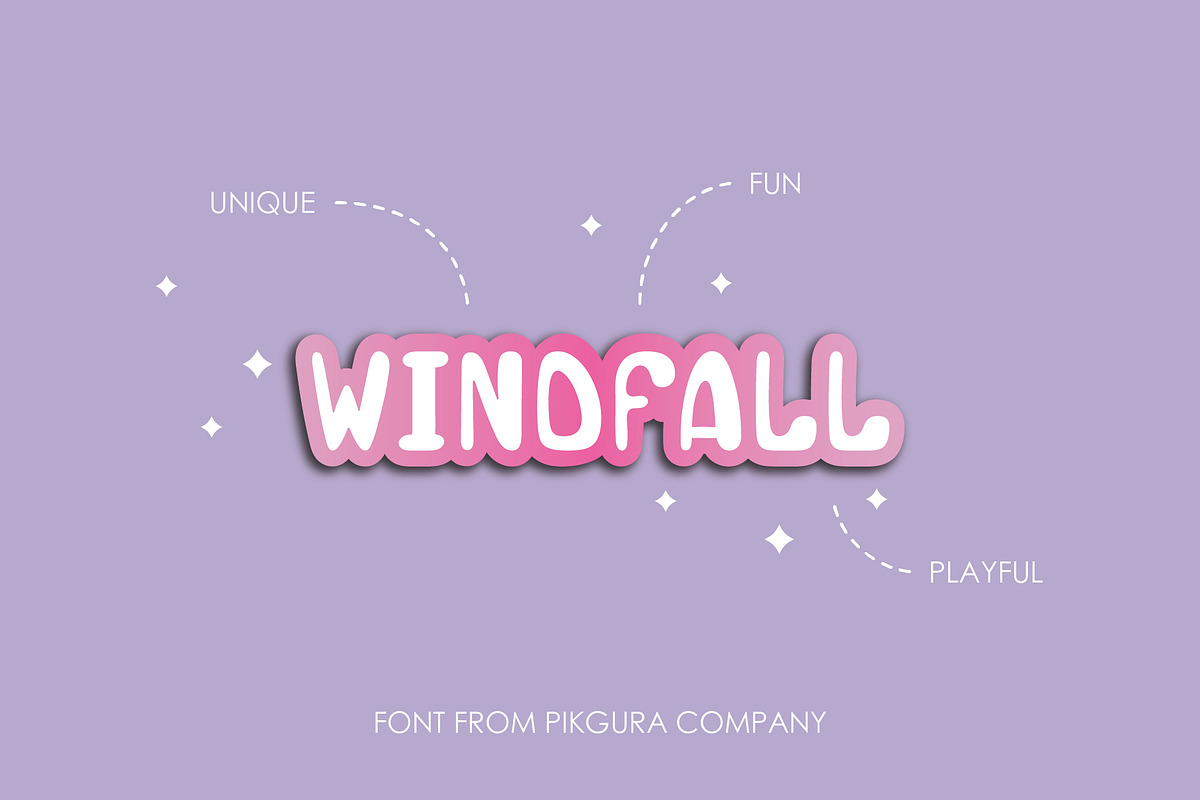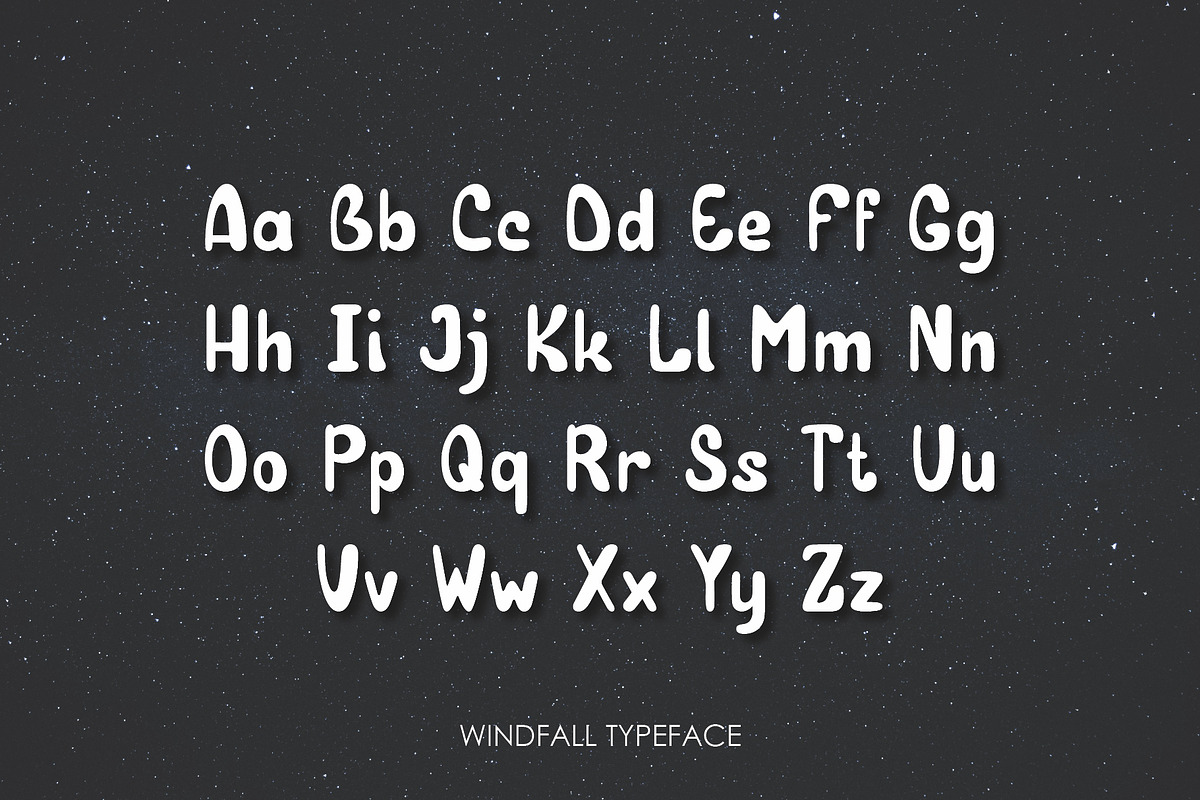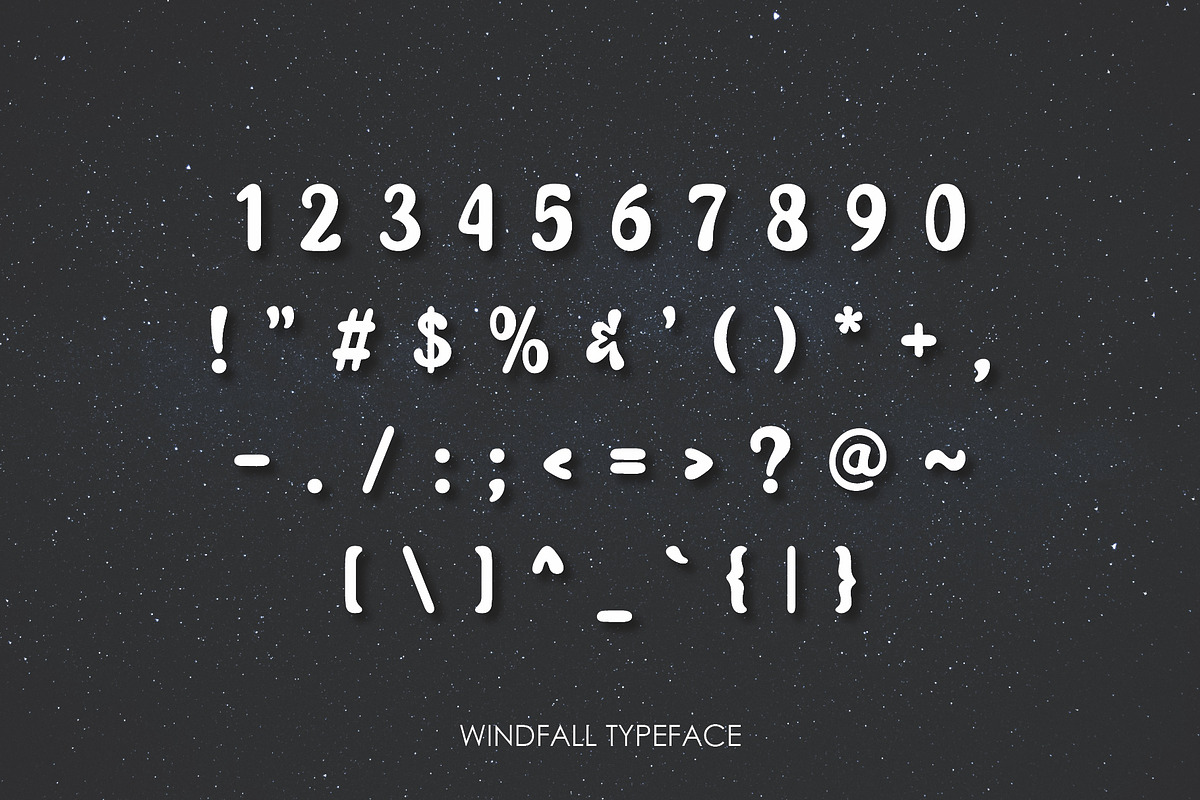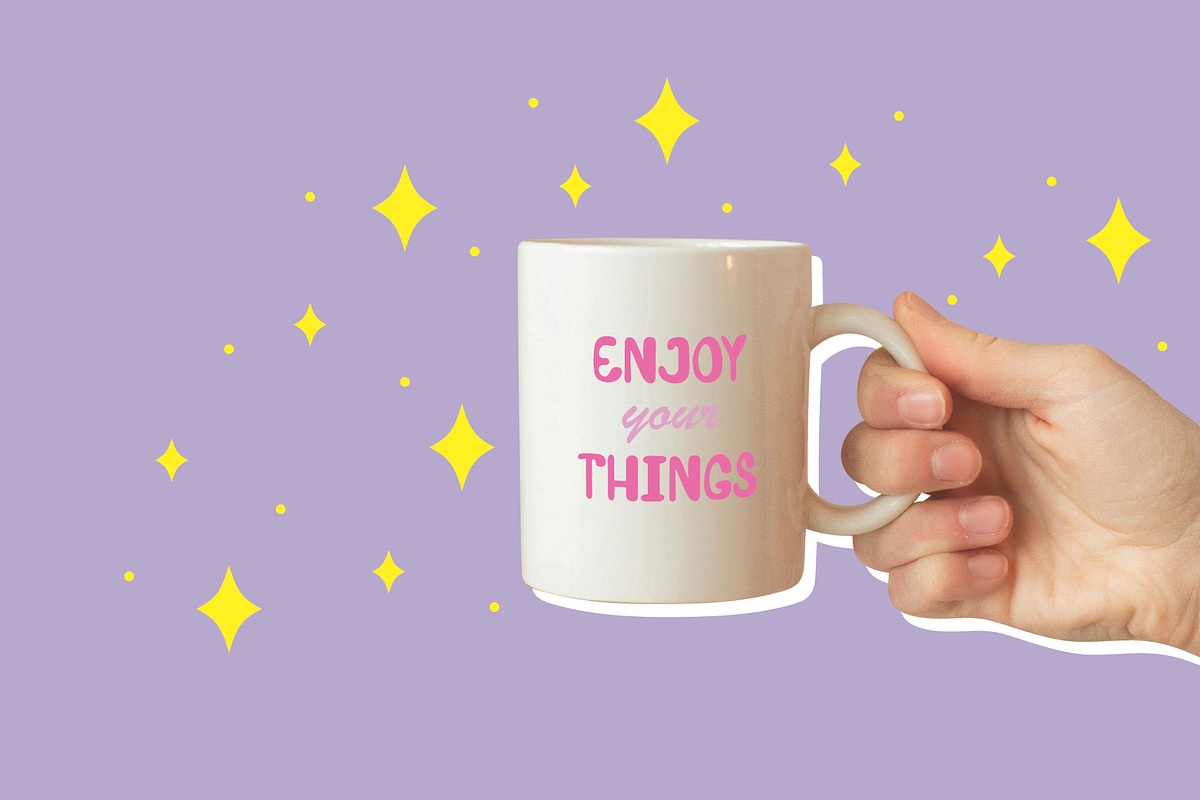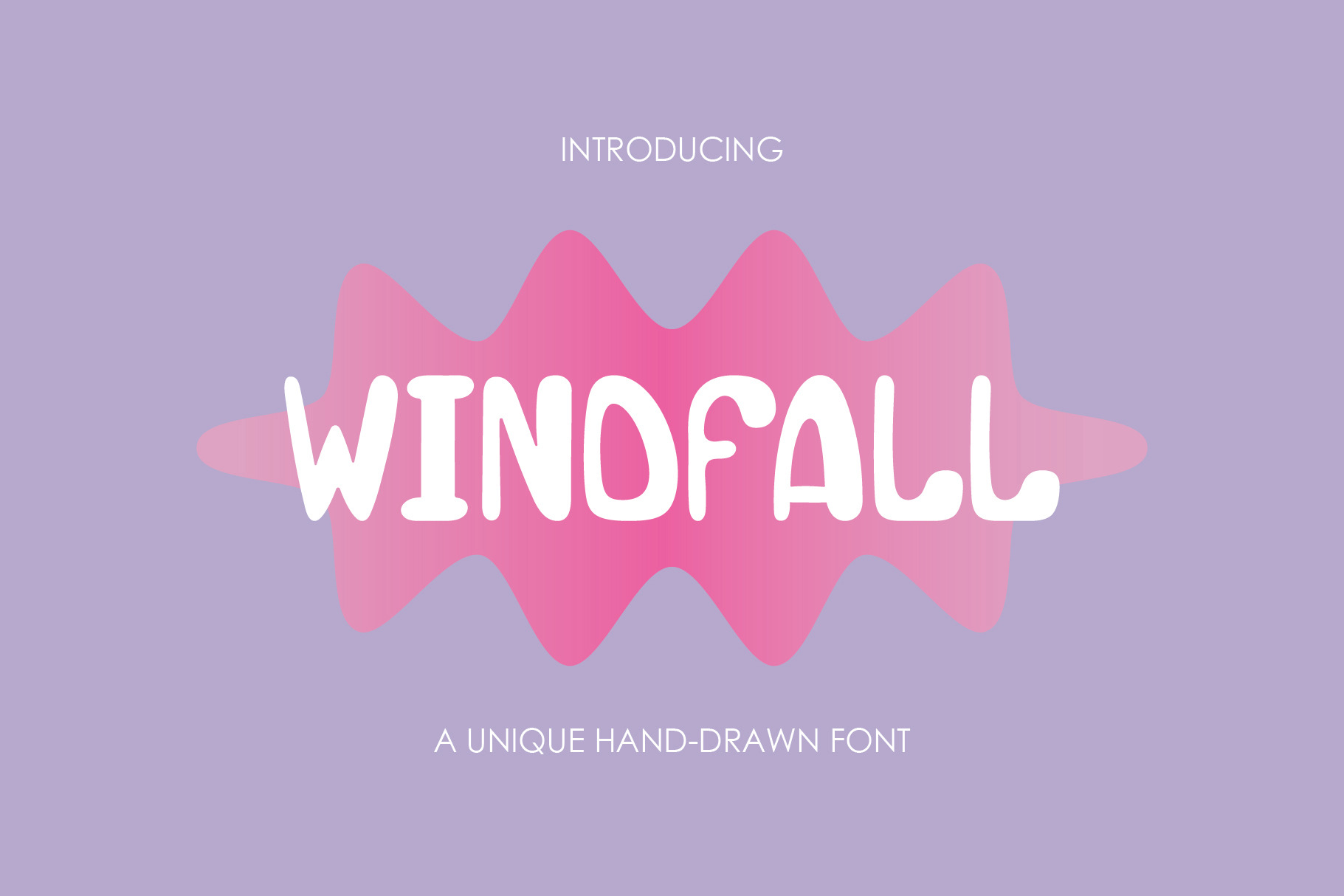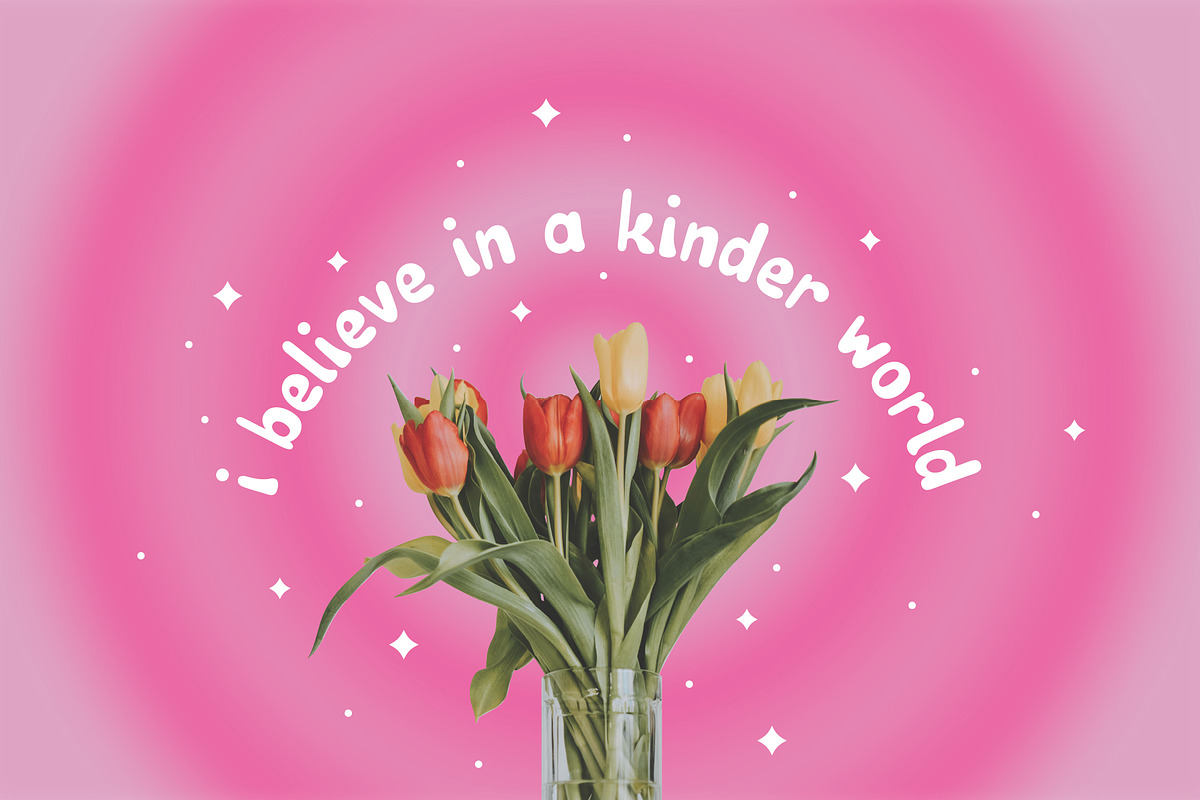
PGR Windfall - Handwritten Font
Windfall is the ultimate groovy display font that’s sure to make a statement! With its handmade, bubble-style design, this font is perfect for adding a playful touch to your designs.
This font great for creating designs for kids, such as children’s books, stickers, and educational materials. Its playful and fun design makes it perfect for capturing the imagination of young minds. But Windfall isn’t just for kids’ designs – it’s also great for creating logos, apparels, and other designs that need a playful touch!
The Windfall font package includes everything you need to get started, including uppercase and lowercase letters, numbers, and basic punctuation.